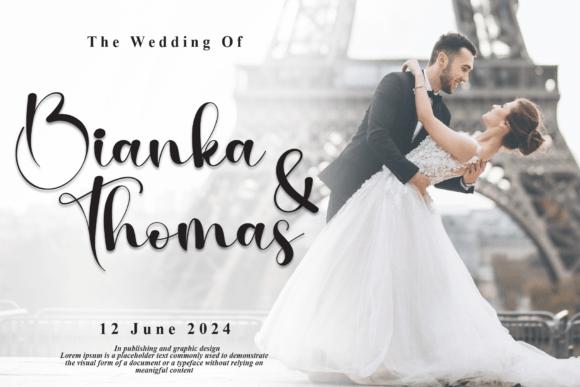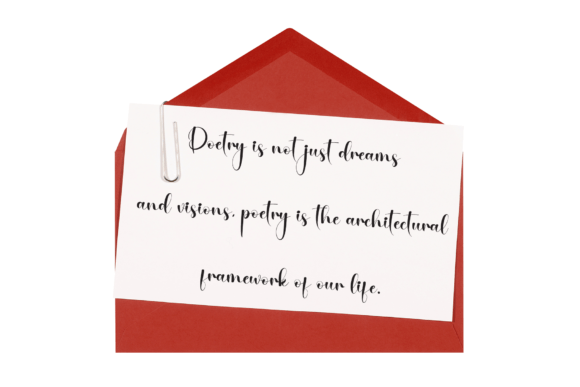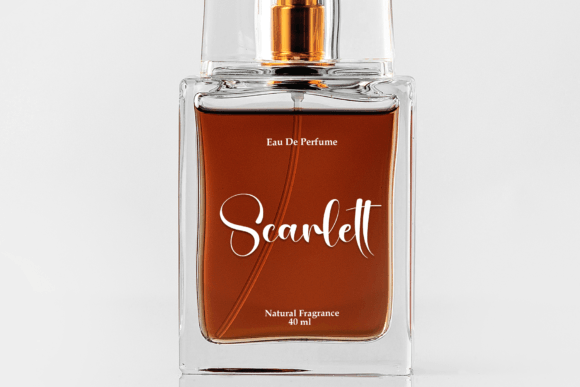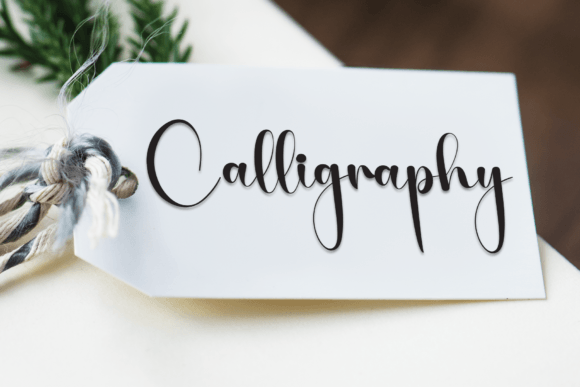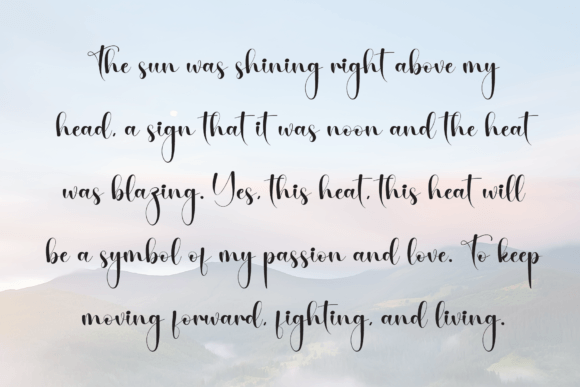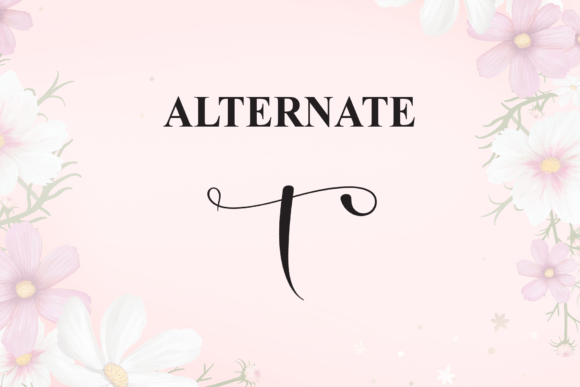
Discover the Elegance of Beautiful Font
Have you ever stumbled upon a design that makes you stop and take a closer look? Perhaps it was a beautifully crafted logo, a stunning invitation, or a captivating advertisement that caught your eye. For designers, those moments of inspiration are what drive us to create something truly special. And that’s exactly what Beautiful Font is all about – creating breathtaking designs that leave a lasting impression.
Beautiful Font is a delicate and elegant handwritten font that exudes sophistication and refinement. Its unique and well-balanced letters make it a masterpiece that can elevate any design. Whether you’re a seasoned designer or just starting out, Beautiful Font is the perfect addition to your toolkit. Its versatility makes it suitable for a wide range of projects, from wedding invitations to branding materials.
With Beautiful Font, the possibilities are endless. So why settle for ordinary designs when you can create something truly extraordinary? Let Beautiful Font be the key to unlocking your creativity and taking your designs to the next level.
Key Features of Beautiful Font
- Font Family: Beautiful Font is a premium font family consisting of 12 unique styles, each with its own distinct personality.
- Unique Characteristics: Beautiful Font features a unique blend of modern and vintage elements, giving it a timeless and sophisticated look.
- Customization Options: Beautiful Font includes a range of customization options, including ligatures, swashes, and alternate characters.
Beautiful Font Review
I recently had the chance to work with “Beautiful Font”, and I have to say, it’s a mixed bag. Some aspects really shine, while others leave room for improvement.
- Beautiful Font has a unique, elegant feel to it. It’s perfect for projects that need a touch of sophistication.
- The font is highly legible, making it easy to read even at smaller sizes.
- The font family includes a range of weights and styles, offering plenty of options for customization.
- Beautiful Font can be a bit too ornate for some projects, making it feel overwhelming or even kitschy.
- The font lacks a clear “default” or “neutral” style, which can make it harder to pair with other typography.
- The font family is not as extensive as some other popular fonts, which may limit its versatility.
Overall, I’d say Beautiful Font is a solid choice for projects that need a touch of elegance, but it may not be the best fit for more straightforward or modern designs. With some careful consideration and pairing, it can be a beautiful addition to your typography arsenal.
Tips for Getting the Most Out of Beautiful Font
Use Beautiful Font for headings and titles to add a touch of elegance to your designs. You can also use it for body text to create a cohesive look. Experiment with different font sizes and styles to find the perfect combination for your project.
Beautiful Font is ideal for wedding invitations, event promotions, and luxury brand designs. It’s also a great choice for creating visually appealing blog posts, social media graphics, and marketing materials.